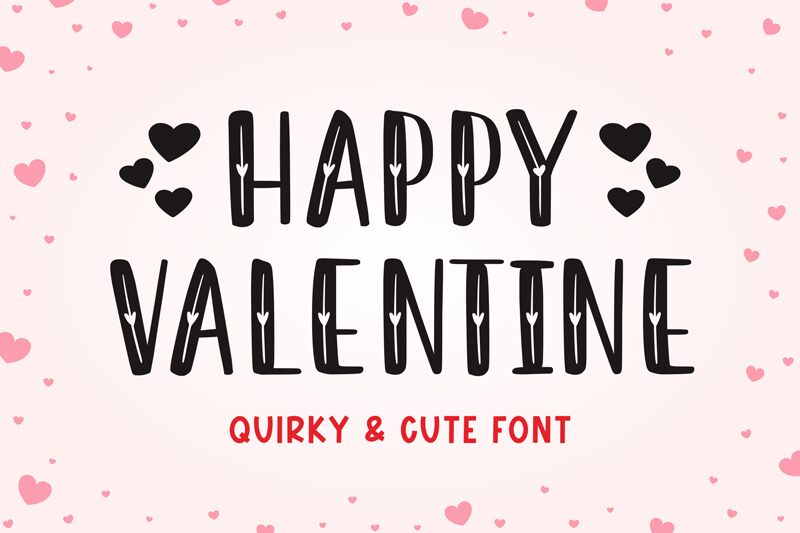
Happy Valentine font designed by Mozatype is a charming and cheerful holiday font. This handwritten typography was created with a set of truly unique characters where each delivers its own style and look of expression for an entire font that is simply thematic and decorative. Pick this free font to give your viewers the Valentine’s day joy in your graphic designs.
Celebrate Valentine’s Day with all its love and fun with your special cards and invitations with this delightful font. Created for both digital and printed projects, it can be used for postcards, social media posts, flyers, typography artwork, and stickers. With a lively yet friendly display, it’s suitable for badges, ornaments, packaging designs, logotypes, branding designs, decorations, etc.